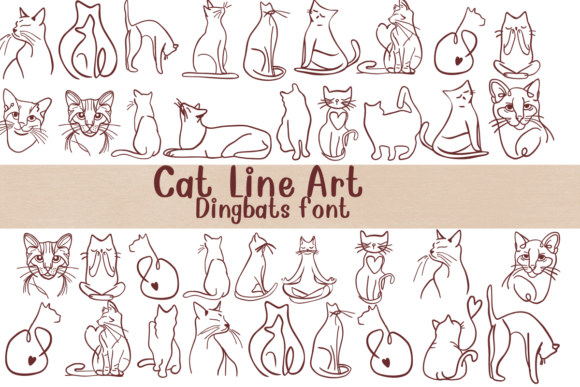
Whiskers and Words: The Joy of Cat Line Art Font
As a designer, there’s nothing quite like the thrill of hitting that perfect creative moment – when the words flow effortlessly and the ideas start pouring in. For me, it often begins with a simple doodle or a playful illustration. Recently, I stumbled upon the Cat Line Art Font, and it’s been a game-changer for my projects.
This delightful font features a range of stylized cat designs, each one more adorable than the last. Instead of traditional letters, the keyboard displays a different cat face or pose, adding a touch of whimsy and personality to any text. Whether you’re designing a children’s book, a social media campaign, or simply a birthday card for a cat lover, the Cat Line Art Font is a valuable addition to your toolkit.
Cat Line Art Font Key Features
- Unique Line Art Style: The Cat Line Art Font features a distinctive line art design, where each character is composed of a series of connected lines, creating a unique and eye-catching visual effect.
- High-Quality Illustrations: The font includes high-quality illustrations of cats, making it a great choice for designers and artists who want to add a touch of whimsy and fun to their work.
Designer Review: Cat Line Art Font
As a designer, I was excited to try out the Cat Line Art Font, and I must say it has its unique charm. Here’s my honest review.
- Whimsical and playful feel: The font has a fun, hand-drawn quality that’s perfect for projects that need a touch of whimsy.
- Customization options: The font comes with a range of customization options, including size, color, and spacing, which makes it easy to adapt to different design contexts.
- Unique character: The font’s quirky characters and ornaments add an extra layer of personality to designs.
- Limited legibility: While the font is great for playful designs, it may not be the best choice for body text, as it can be difficult to read at smaller sizes.
Overall, I’d give the Cat Line Art Font 4 out of 5 stars. It’s a great choice for designers looking to add a touch of playfulness to their projects, but it may not be the best fit for every design need.
Use the Cat Line Art Font to create whimsical and playful designs.
Combine it with bold lines and bright colors for a striking effect.
Experiment with different font sizes and styles to add depth and interest to your designs.
Use the Cat Line Art Font for:
Cat-themed designs and illustrations.
Children’s book covers and interior illustrations.
Marketing materials and social media graphics.